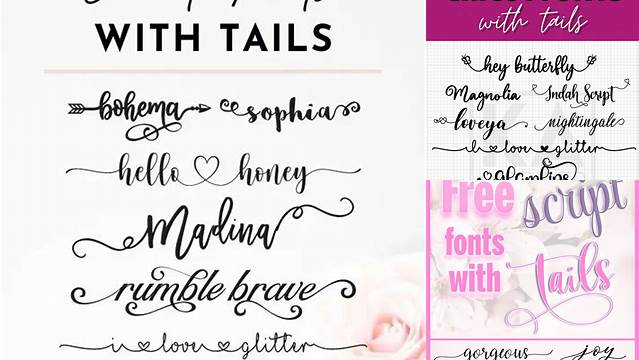
Free Cricut Cursive Fonts With Tails: Download Now!
Hey crafters! Are you looking for some awesome free Cricut cursive fonts with tails to spice up your projects? You've come to the right place! In this article, we're diving deep into the world of elegant, swirly fonts that will make your Cricut crafts stand out. Get ready to download some beauties and let your creativity flow!
Cricut Cursive Fonts with Tails: An Overview
Cricut cursive fonts with tails are a fantastic way to add a touch of elegance and personality to your crafting projects. These fonts, characterized by their flowing script and decorative extensions (tails), can elevate everything from wedding invitations to home décor. Finding them for free? Even better! Let's explore why these fonts are so popular and how you can make the most of them.
Why Choose Cursive Fonts with Tails for Cricut?
Cursive fonts with tails offer a unique blend of sophistication and charm that standard fonts simply can't match. The tails, or swashes, add a decorative flair, making your designs more visually appealing. Whether you're creating personalized gifts, custom apparel, or intricate paper crafts, these fonts bring a special touch that enhances the overall aesthetic. For Cricut users, these fonts open up a world of creative possibilities, allowing for projects that are both professional and personalized.
Where to Find Free Cursive Fonts with Tails for Cricut
Finding high-quality, free Cricut cursive fonts with tails can sometimes feel like searching for a needle in a haystack. However, numerous online resources offer excellent options. Websites like DaFont, FontSpace, and Creative Fabrica (often with free sections) are great starting points. Just be sure to check the licensing agreements to ensure the font is free for commercial use if you plan to sell your creations. Always, always double-check those licenses, guys! It saves you a headache later on.
Using Cursive Fonts with Tails in Cricut Design Space
Once your Cricut cursive fonts with tails are installed, using them in Cricut Design Space is a breeze. Here’s how:
- Adjust Letter Spacing: Cursive fonts often need adjusted letter spacing (kerning) to ensure the letters connect properly. Use the letter spacing tool to fine-tune the spacing until the script flows smoothly.
- Add Tails: Some fonts come with pre-designed tails, while others may require you to add them manually using glyphs or additional design elements. Get creative and experiment!
Best Project Ideas for Cursive Fonts with Tails
Cursive fonts with tails are incredibly versatile and can be used in a wide range of projects. Here are some ideas to get you started:
- Wedding Invitations: Add a touch of elegance to wedding invitations and stationery.
- Personalized Gifts: Create custom mugs, tote bags, and apparel with personalized names or quotes.
- Home Décor: Design wall decals, framed prints, and decorative signs for your home.
- Greeting Cards: Make beautiful greeting cards for birthdays, holidays, and special occasions.
- Scrapbooking: Enhance your scrapbook layouts with stylish journaling and titles.
Troubleshooting Common Issues with Cursive Fonts
Sometimes, using Cricut cursive fonts with tails can present a few challenges. Here are some common issues and how to troubleshoot them:
- Font Not Showing Up: If your font doesn't appear in Cricut Design Space, ensure it's properly installed and that you've restarted the program.
- Letter Spacing Problems: Adjust the letter spacing in Cricut Design Space to ensure the letters connect seamlessly.
- Cutting Issues: If your Cricut is having trouble cutting intricate fonts, try using a sharper blade or slowing down the cutting speed.
- Font Compatibility: Ensure the font is compatible with Cricut Design Space. Some fonts may not work properly due to technical issues.
Exploring Different Styles of Cursive Fonts
There are numerous styles of Cricut cursive fonts with tails, each offering a unique aesthetic. Some popular styles include:
- Elegant Scripts: Perfect for formal events and sophisticated designs.
- Playful Cursive: Ideal for children's projects and casual crafts.
- Modern Calligraphy: A contemporary take on traditional calligraphy, great for trendy designs.
- Vintage Scripts: Add a nostalgic touch to your projects with vintage-inspired fonts.
Tips for Perfecting Your Cursive Font Projects
To ensure your projects using Cricut cursive fonts with tails look their best, keep these tips in mind:
- Choose the Right Font: Select a font that matches the tone and style of your project.
- Adjust Letter Spacing: Pay close attention to letter spacing to ensure a smooth and readable script.
- Use High-Quality Materials: Use high-quality materials to ensure your finished product looks professional.
- Test Your Design: Before cutting your final design, do a test cut to ensure everything looks as expected.
- Get Creative: Don't be afraid to experiment with different colors, textures, and embellishments to make your project unique.
Advanced Techniques with Cursive Fonts
Ready to take your Cricut cursive fonts with tails projects to the next level? Here are some advanced techniques to try:
- Welding Letters: Use the welding tool in Cricut Design Space to seamlessly connect cursive letters for a continuous cut.
- Adding Shadows: Create a shadow effect behind your cursive text to add depth and dimension.
- Using Glyphs: Explore the glyphs panel in your font to access additional characters and decorative elements.
- Combining Fonts: Combine cursive fonts with sans-serif fonts for a visually interesting contrast.
Maintaining Your Font Library
Keeping your font library organized is essential for efficient crafting. Here’s how to maintain it:
- Create Folders: Organize your fonts into folders based on style, type, or project.
- Use a Font Manager: Consider using a font management software to easily browse, activate, and deactivate fonts.
- Back Up Your Fonts: Regularly back up your font library to prevent data loss.
- Remove Unused Fonts: Periodically review your font library and remove any fonts you no longer use to free up space.
Understanding font licensing is crucial to avoid legal issues. Here’s what you need to know:
- Personal Use: Fonts licensed for personal use can be used for non-commercial projects.
- Commercial Use: Fonts licensed for commercial use can be used for projects that generate income.
- Read the License Agreement: Always read the license agreement before using a font to understand the terms and conditions.
- Attribution: Some fonts may require attribution, meaning you need to give credit to the font designer.
Inspiring Examples of Projects with Cursive Fonts and Tails
Need some inspiration? Check out these amazing projects that use Cricut cursive fonts with tails:
- Custom Wedding Signs: Elegant signs with personalized messages for wedding receptions.
- Monogrammed Apparel: Stylish t-shirts and hoodies with monogrammed initials.
- Personalized Water Bottles: Unique water bottles with custom names and designs.
- Decorative Wall Art: Beautiful wall art with inspirational quotes and decorative elements.
Resources for Learning More About Typography
Want to deepen your knowledge of typography? Here are some excellent resources:
- Books on Typography: "The Elements of Typographic Style" by Robert Bringhurst is a classic resource.
- Online Courses: Platforms like Skillshare and Coursera offer courses on typography and font design.
- Typography Blogs: Blogs like I Love Typography and Fonts in Use provide valuable insights and inspiration.
- Design Communities: Join online design communities to learn from experienced designers and share your work.
How to Digitize Your Own Handwriting into a Cursive Font
Want to create a truly unique font? Here’s how to digitize your own handwriting:
- Write Out Your Alphabet: Write out the entire alphabet in cursive, along with numbers and punctuation marks.
- Scan Your Handwriting: Scan your handwriting at a high resolution.
- Use Font Creation Software: Use font creation software like FontLab or Glyphs to trace and digitize your handwriting.
- Adjust Spacing and Kerning: Fine-tune the spacing and kerning to ensure the font looks smooth and readable.
- Test Your Font: Test your font in different applications to ensure it works as expected.
Exploring Font Pairing for Optimal Design
Font pairing is the art of combining different fonts to create a visually appealing design. Here are some tips:
- Contrast: Choose fonts with contrasting styles, such as a cursive font paired with a sans-serif font.
- Hierarchy: Use different font sizes and weights to create a clear visual hierarchy.
- Readability: Ensure that the font pairing is easy to read and doesn't strain the eyes.
- Consistency: Maintain consistency in your font pairing throughout your design.
Understanding Kerning and Letter Spacing
Kerning and letter spacing are essential for creating readable and visually appealing text. Here’s what you need to know:
- Kerning: Kerning is the adjustment of space between individual letters to improve readability.
- Letter Spacing: Letter spacing is the uniform adjustment of space between all letters in a word or phrase.
- Use Kerning Tools: Use kerning tools in design software to fine-tune the spacing between letters.
- Adjust Letter Spacing: Adjust letter spacing to improve the overall readability of your text.
The Psychology of Fonts: Choosing the Right Mood
Fonts can evoke different emotions and moods. Here’s how to choose the right font for your project:
- Consider Your Audience: Think about the demographics and preferences of your target audience.
- Match the Tone: Choose a font that matches the tone and message of your project.
- Evoke Emotion: Select a font that evokes the desired emotion or feeling.
- Test Different Fonts: Experiment with different fonts to see which ones resonate best with your audience.
Best Websites for Downloading Free Fonts Safely
Downloading fonts from untrusted sources can be risky. Here are some safe and reputable websites:
- DaFont: A popular website with a vast collection of free fonts.
- FontSpace: Another great resource for free fonts, with a user-friendly interface.
- Google Fonts: A library of open-source fonts that are free for commercial use.
- Creative Fabrica: Offers both free and premium fonts, with a focus on creative assets.
How to Preview Fonts Before Downloading
Previewing fonts before downloading is essential to ensure they meet your needs. Here’s how:
- Use Online Font Preview Tools: Many websites offer online font preview tools that allow you to see how a font looks before downloading it.
- Type Your Own Text: Type your own text in the preview tool to see how the font looks with your specific content.
- Adjust Font Size and Color: Adjust the font size and color to get a better sense of how the font will look in your project.
- Consider Different Contexts: Preview the font in different contexts to see how it performs in various situations.
The Impact of Font Choice on Branding
Font choice plays a crucial role in branding. Here’s how to use fonts to create a strong brand identity:
- Choose a Font That Reflects Your Brand: Select a font that aligns with your brand’s values and personality.
- Use a Consistent Font: Use the same font across all your branding materials to create a cohesive look.
- Consider Readability: Ensure that your font is easy to read and doesn’t detract from your message.
- Test Your Font with Your Audience: Test your font with your target audience to ensure it resonates with them.
Legal Aspects of Using Fonts in Commercial Projects
Understanding the legal aspects of using fonts in commercial projects is crucial to avoid copyright infringement. Here’s what you need to know:
- Read the Font License Agreement: Always read the font license agreement to understand the terms and conditions of use.
- Understand Commercial Use Rights: Ensure that you have the right to use the font for commercial purposes.
- Attribute the Font if Required: Some fonts require attribution, meaning you need to give credit to the font designer.
- Avoid Distributing the Font: Do not distribute the font to others unless you have explicit permission from the font designer.
Optimizing Cursive Fonts for Cutting Machines
Optimizing cursive fonts for cutting machines like Cricut ensures clean and precise cuts. Here’s how:
- Weld Overlapping Letters: Use the welding tool in Cricut Design Space to seamlessly connect overlapping letters.
- Simplify Intricate Details: Simplify intricate details in the font to make it easier for the cutting machine to handle.
- Use a Sharp Blade: Use a sharp blade to ensure clean and precise cuts.
- Adjust Cutting Speed and Pressure: Adjust the cutting speed and pressure to match the thickness and material of your project.
Exploring OpenType Features in Cursive Fonts
OpenType features offer advanced typographic options for cursive fonts. Here’s what you can explore:
- Ligatures: Ligatures are special characters that combine two or more letters into a single glyph.
- Swashes: Swashes are decorative extensions or flourishes added to letters.
- Stylistic Alternates: Stylistic alternates offer different versions of characters to add variety to your design.
- Contextual Alternates: Contextual alternates automatically adjust characters based on their surrounding letters.
Future Trends in Cursive Font Design
Staying updated with the latest trends in cursive font design can keep your projects fresh and modern. Here are some trends to watch out for:
- Handwritten Fonts: Fonts that mimic natural handwriting are becoming increasingly popular.
- Variable Fonts: Variable fonts offer greater flexibility and customization options.
- Retro Fonts: Fonts inspired by vintage styles are making a comeback.
- Bold and Chunky Fonts: Bold and chunky cursive fonts are gaining popularity for their eye-catching appeal.